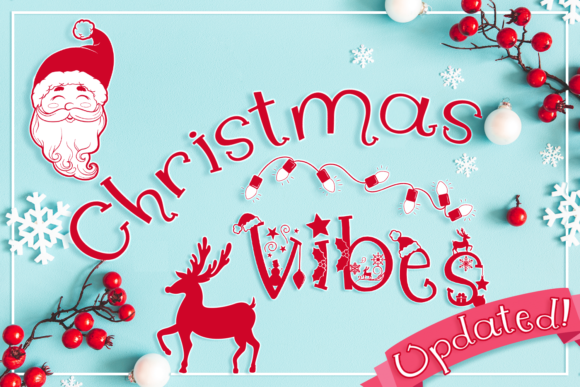
Introducing Christmas Vibes Font, a magnificent decorative font crafted by the talented Anastasia Feya. Immerse yourself in the enchanting holiday spirit and watch your creative ideas transform into captivating masterpieces with this charming typeface.
With Christmas Vibes Font, you can infuse your projects with the essence of the holiday season. Whether you're designing a festive greeting card, crafting a stunning poster, or creating an eye-catching logo for your brand, this font is sure to elevate your work to new heights.
Immerse yourself in the festive atmosphere as each letter of Christmas Vibes Font radiates joy, warmth, and whimsy. Its unique design captures the essence of Christmas, evoking feelings of nostalgia and anticipation. From the intricate swirls to the playful curves, this font brings the magic of the holiday season to life.
Embrace the versatility of Christmas Vibes Font as it effortlessly adapts to any creative endeavor. Its captivating presence on your e-commerce collection page will entice users, drawing them in to explore further. From film script titles to social media graphics, this font is a versatile companion that adds a touch of elegance and originality.
Let your imagination run wild as you experiment with different sizes, colors, and styles. Christmas Vibes Font offers a wide range of possibilities, allowing you to create visually stunning designs that are as unique as your creative vision. Stand out from the crowd and leave a lasting impression on your audience.
Unlock the true potential of your creative endeavors with Christmas Vibes Font. Experience the magic, embrace the holiday spirit, and watch as your designs come alive with festive cheer. Don't miss out on this opportunity to add a touch of enchantment to your work.